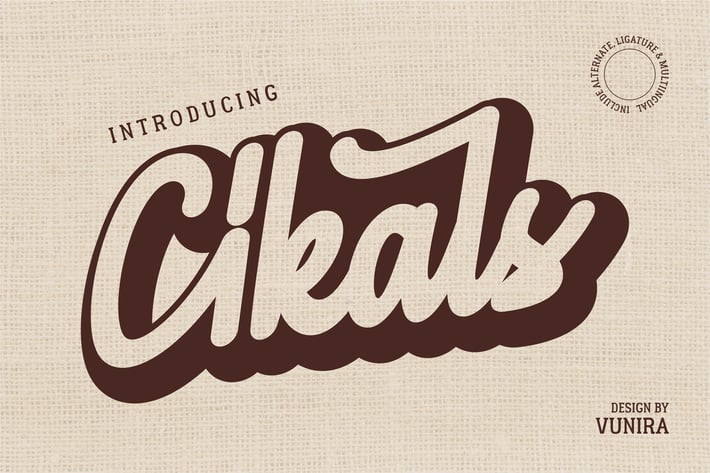
Cikals | Script Font
Cikals | Script Font with a calligraphy style, So beautiful on invitation like greeting cards, branding materials, business cards, quotes, posters, and more!